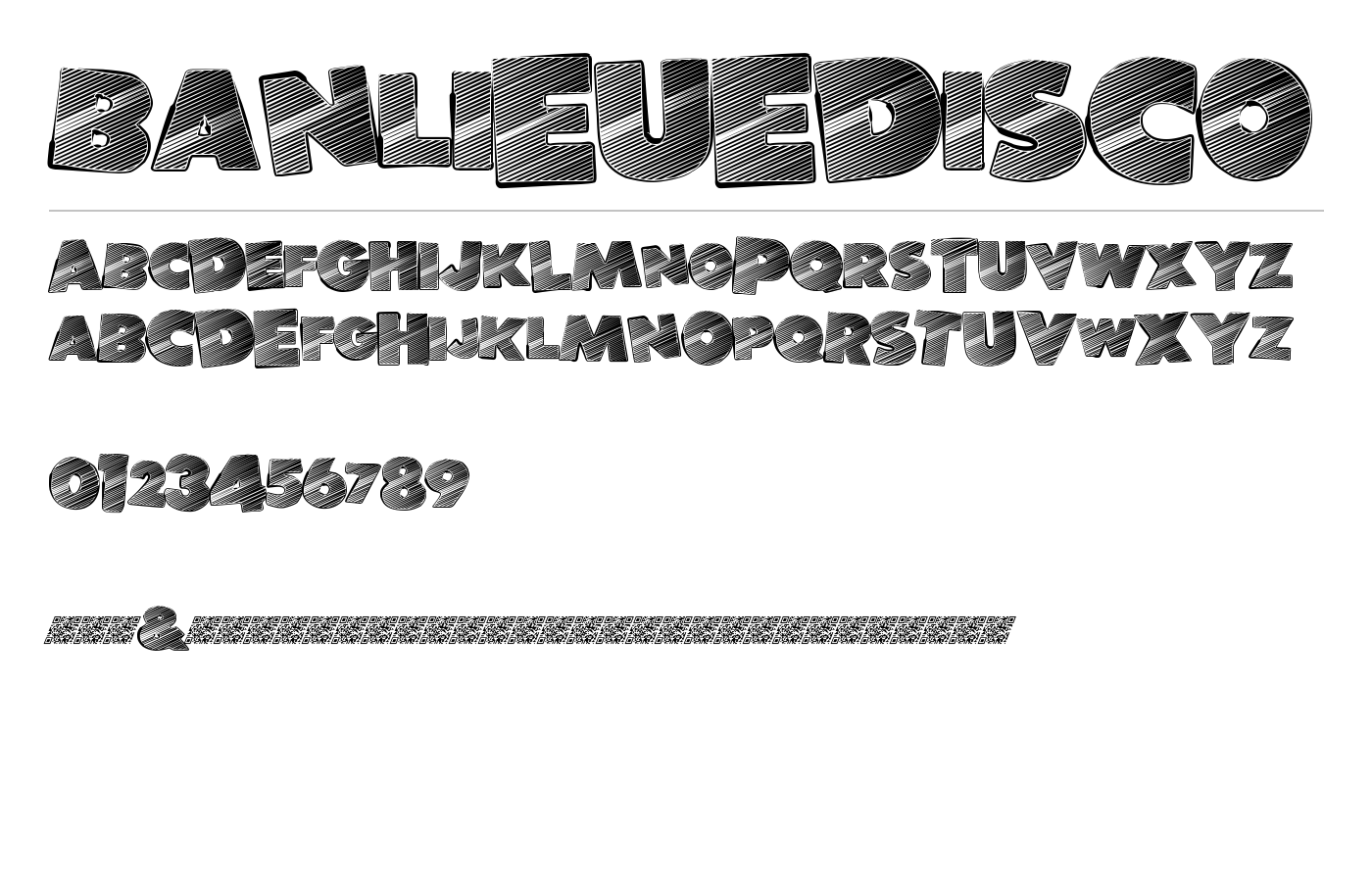
BanlieueDisco is a bold, playful sans serif font with a chunky, rounded style and distinctive diagonal line shading that adds texture and depth. Its heavy weight and wide letterforms give it a vibrant, energetic feel perfect for eye-catching headlines, posters, and branding that demands a fun, dynamic personality. This font works great for creative, informal designs where a lively and approachable atmosphere is desired.
BanlieueDisco Font
About BanlieueDisco Font